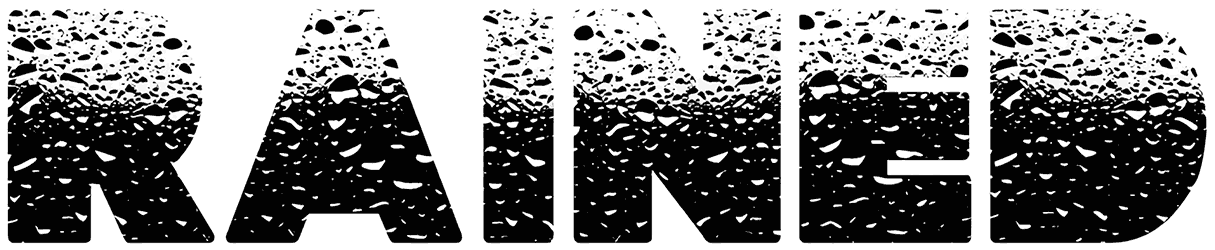
Rained Font
Reflect the image of raindrops on the glass in your words and convey its peace to your audience with this decorative font. Rained doesn’t cover lowercase, numbers, or most punctuation marks, but it has two sets of capitals, simple and adorned. Place this unique and appealing ocean font on your future designs like titles, covers, illustrations, posters, or sundries, and make them admirable.